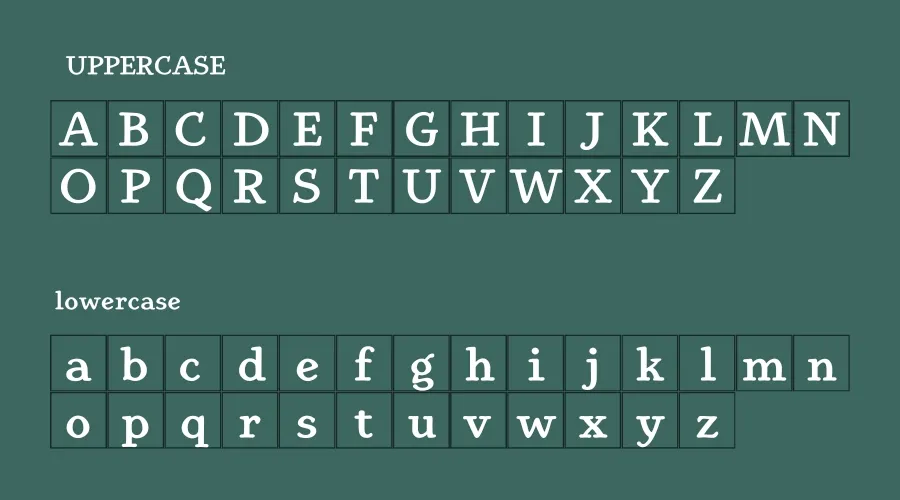
Youbee Font
About Youbee Font
This font is available in the basic serif texture family. It has amazing pairing quality, and you can easily pair this font with Bosan Font and make elegant designs.